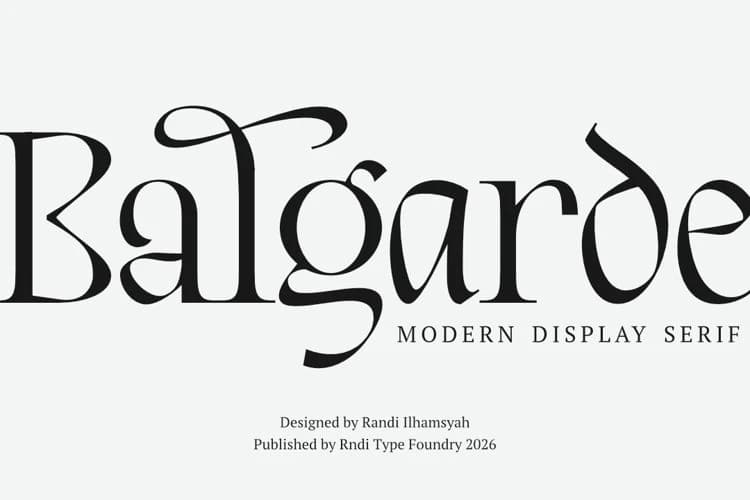
Balgarde Font
Balgarde Serif is a high-contrast display serif with elegant curves and sharp details. Designed to stand out, it delivers a strong and sophisticated presence—perfect for headlines, editorial design, branding, and luxury visuals.